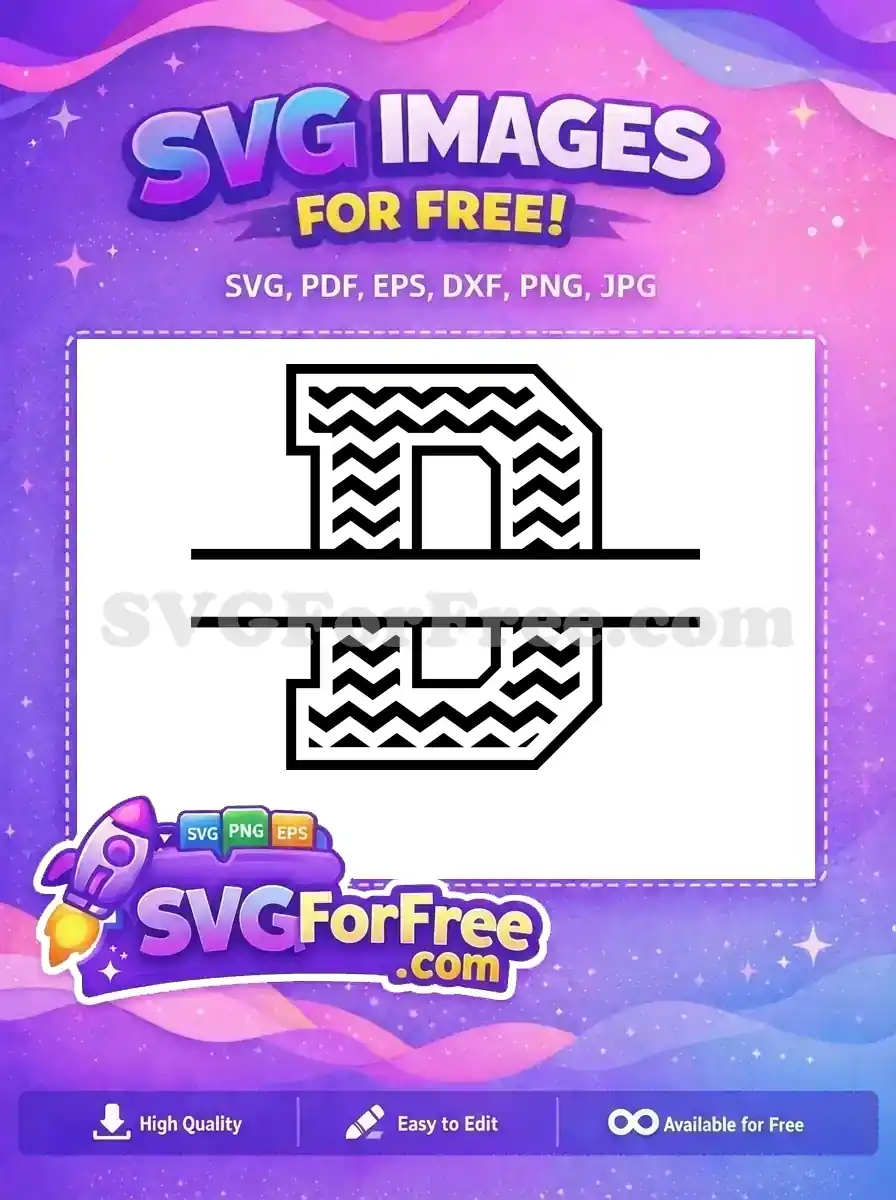
Patterned letter B or D with horizontal lines, a free vector for textured and retro designs.
Free Split Chevron Font Initial Letter D Free Monogram Free SVG